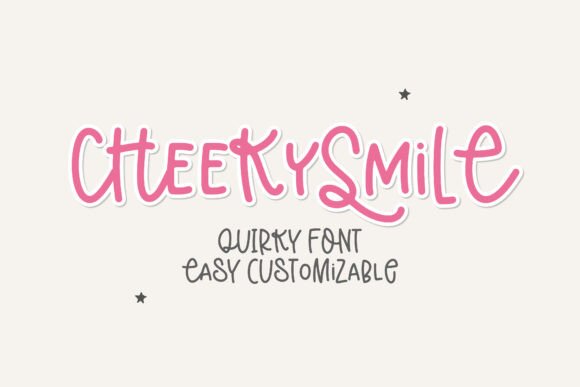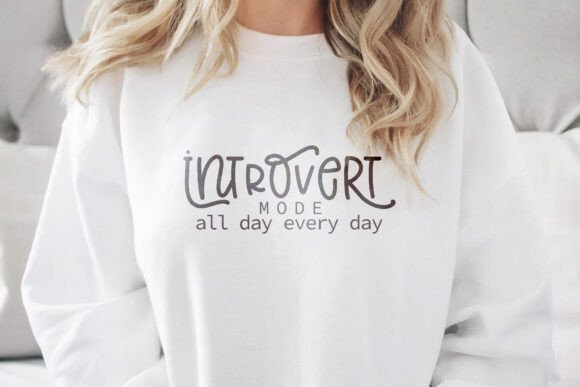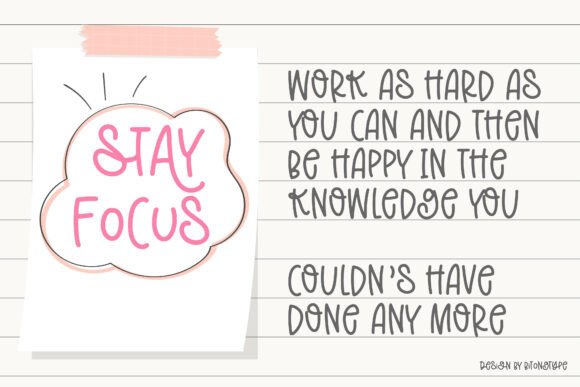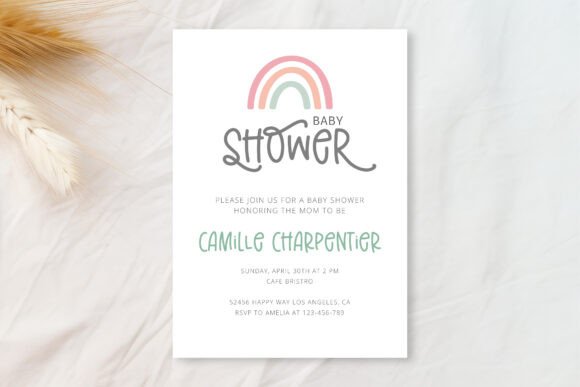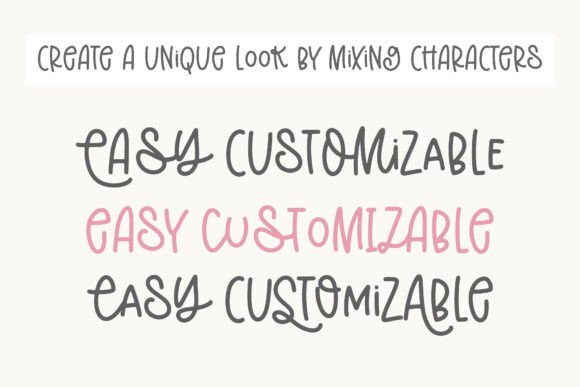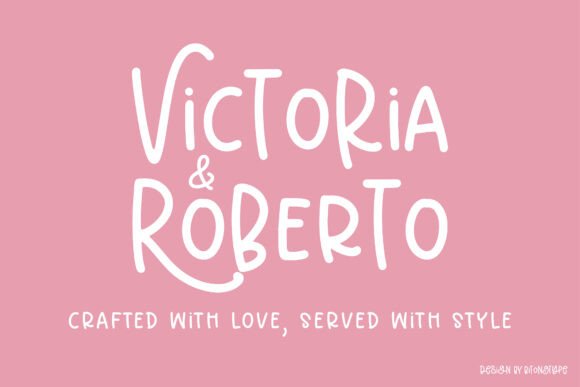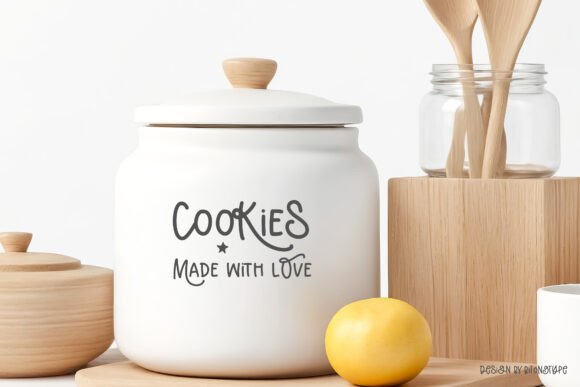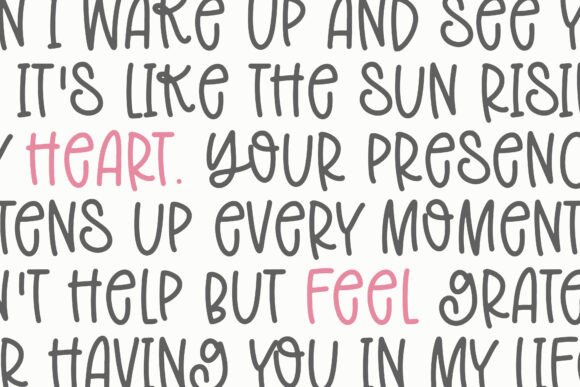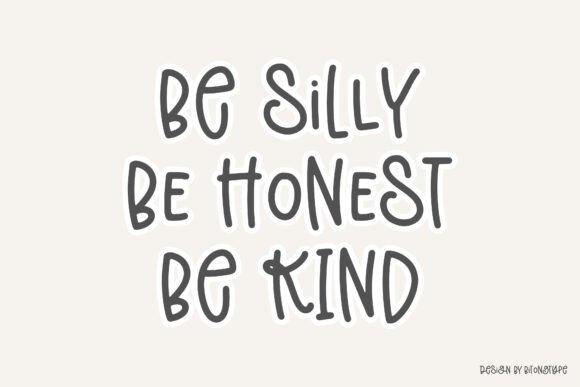
Cheeky Smile Font
Cheeky Smile is a cool, friendly, and informal handwritten font that can be used for all chalkboard quotes or teaching material! Its authentic look and feel will add a personal and realistic touch to your designs